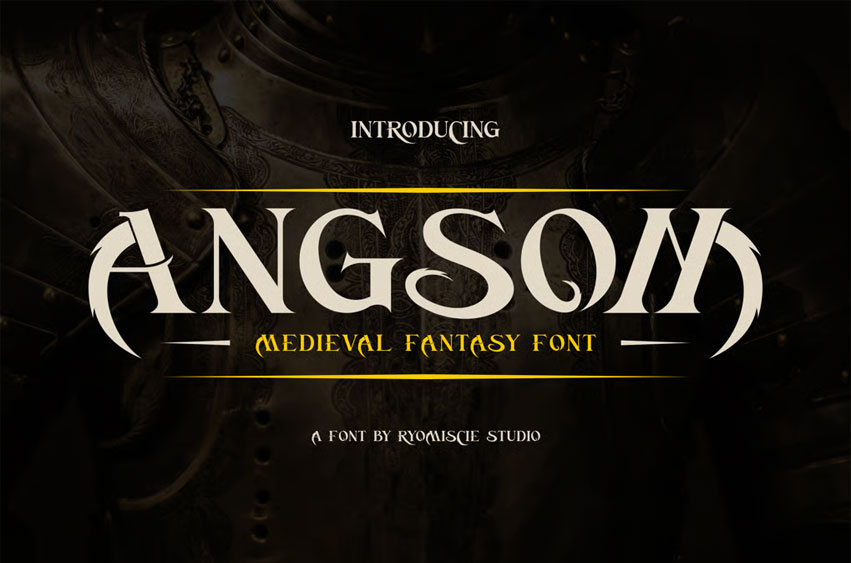
Angsom Font
Angsom Font Medieval Fantasy Font is a bold and authentic display font. The font is suitable for any branding project like logo, esport, and many more.